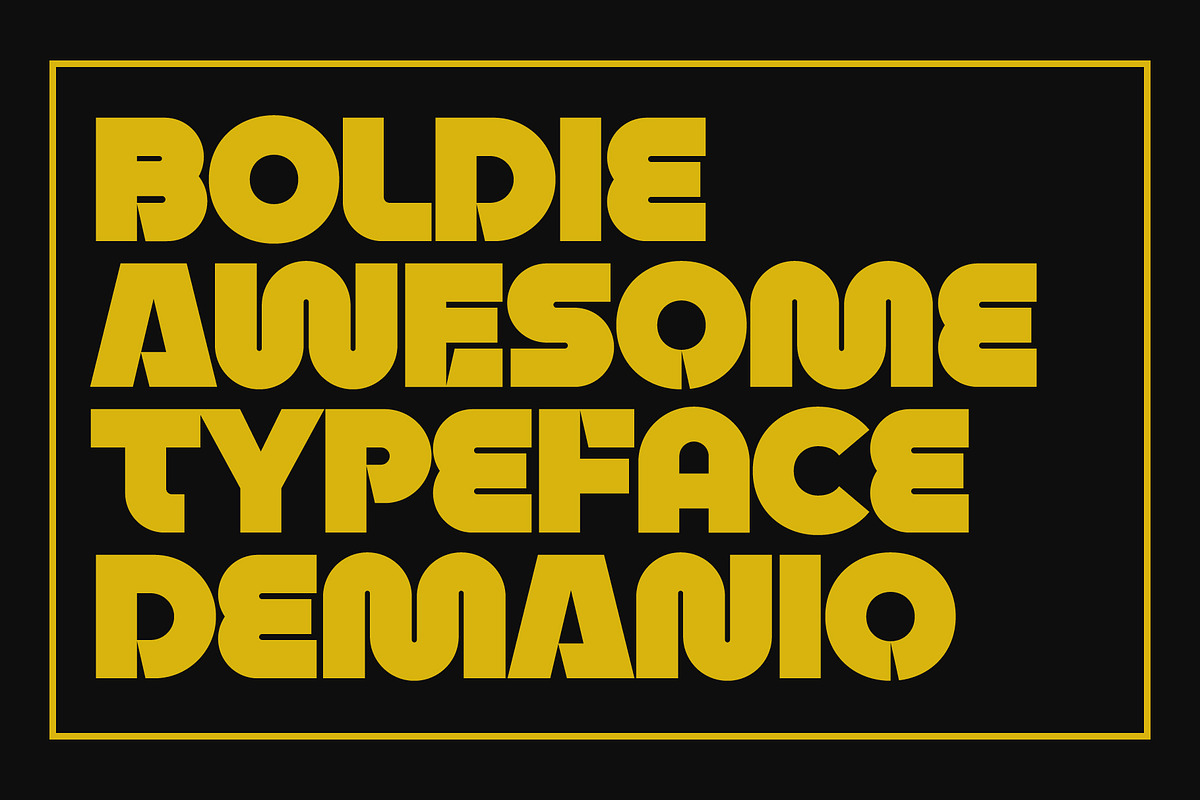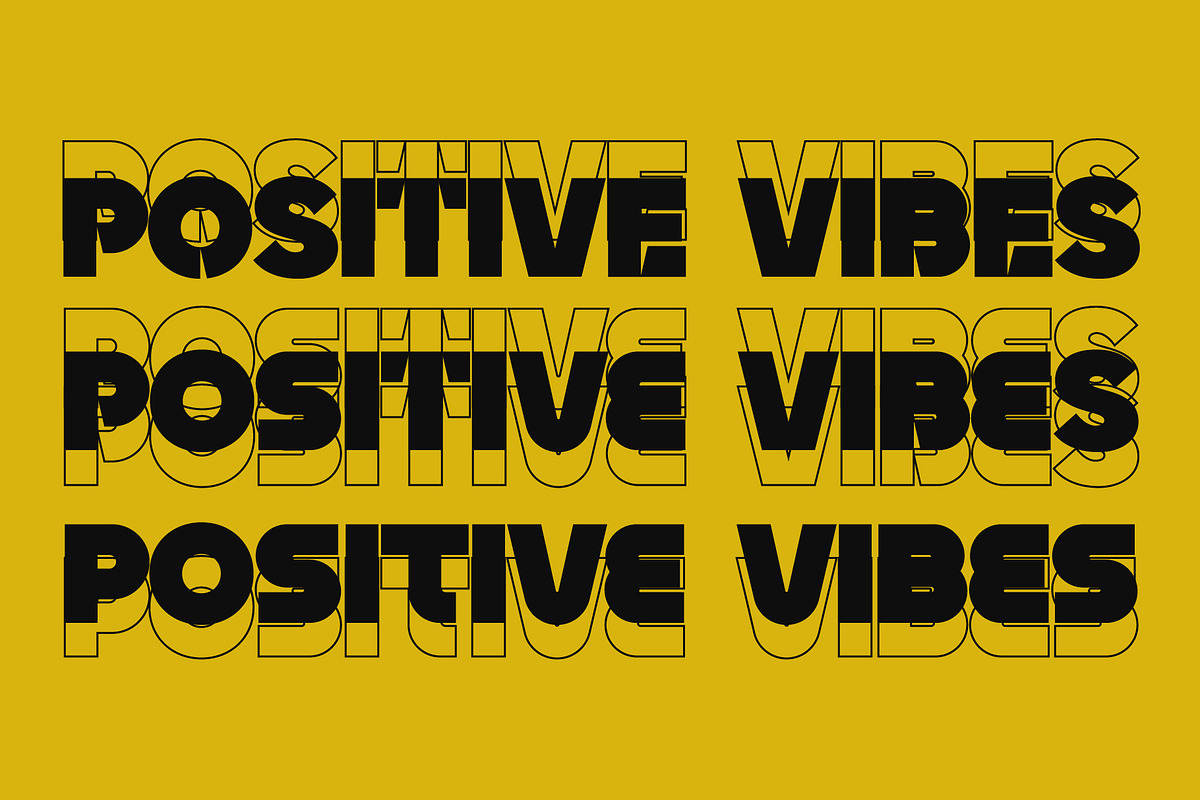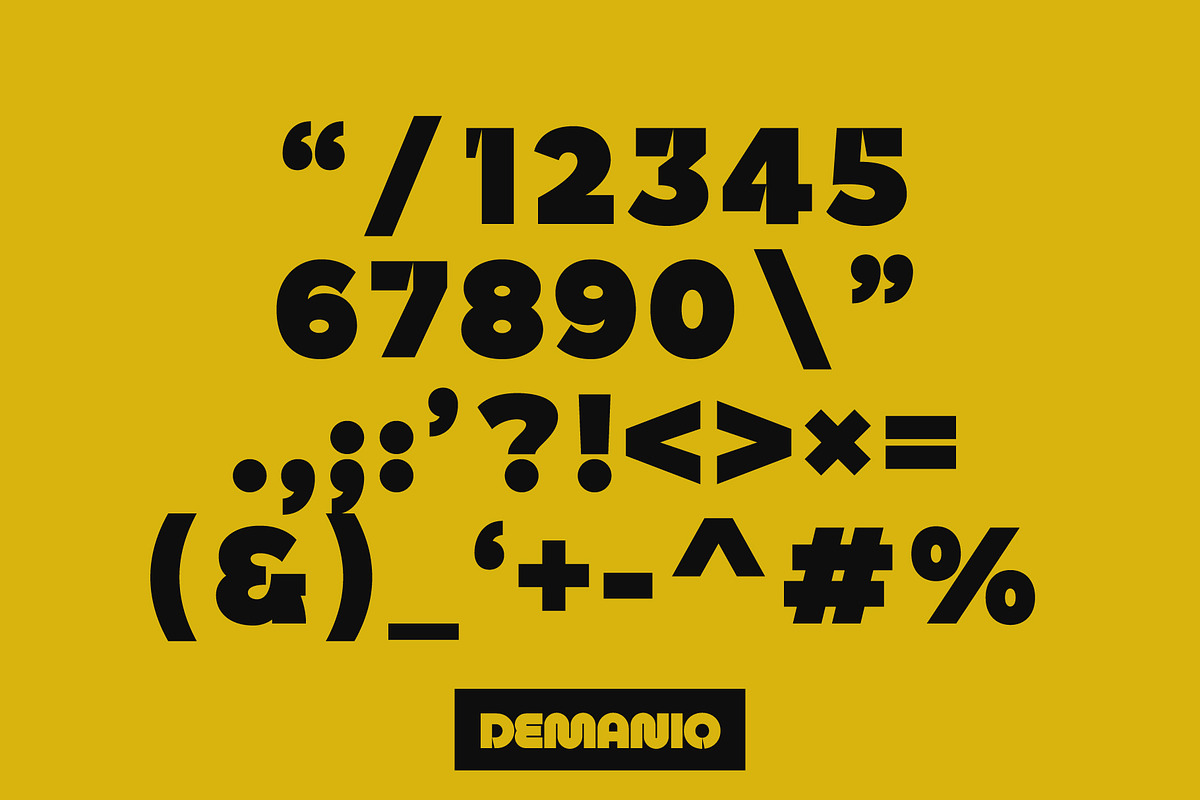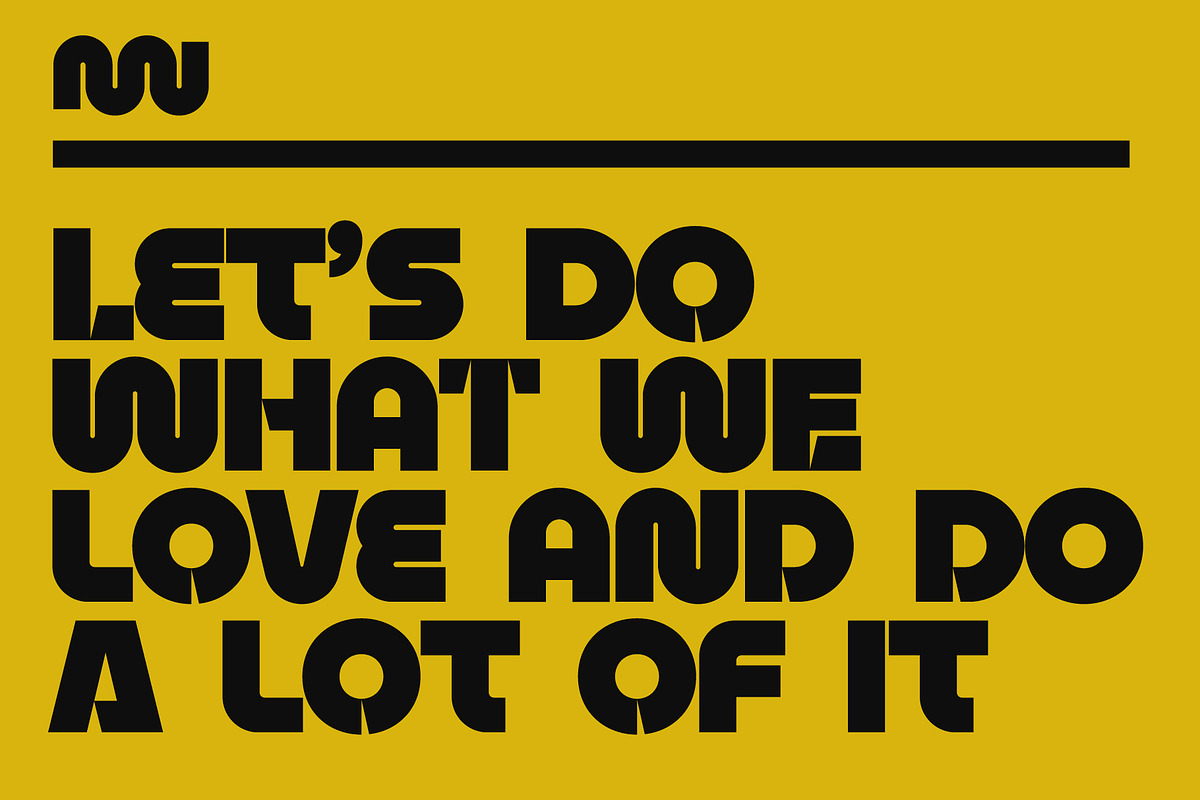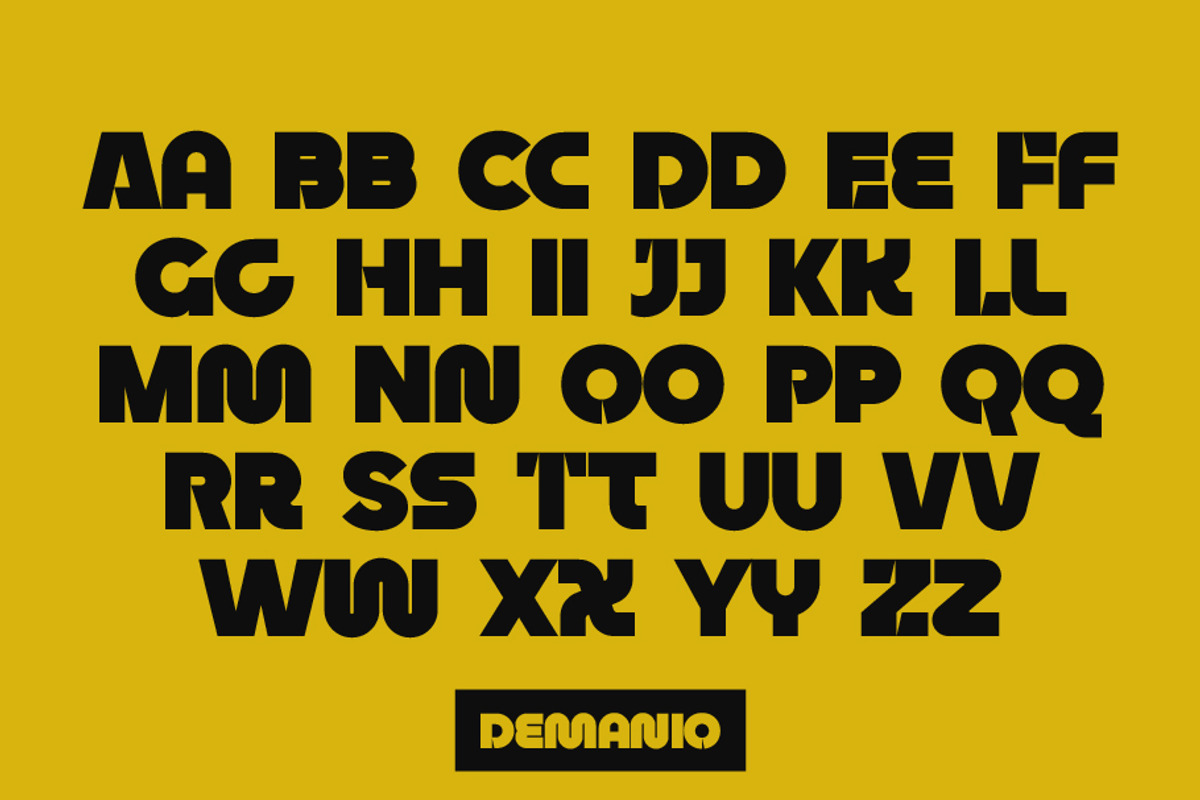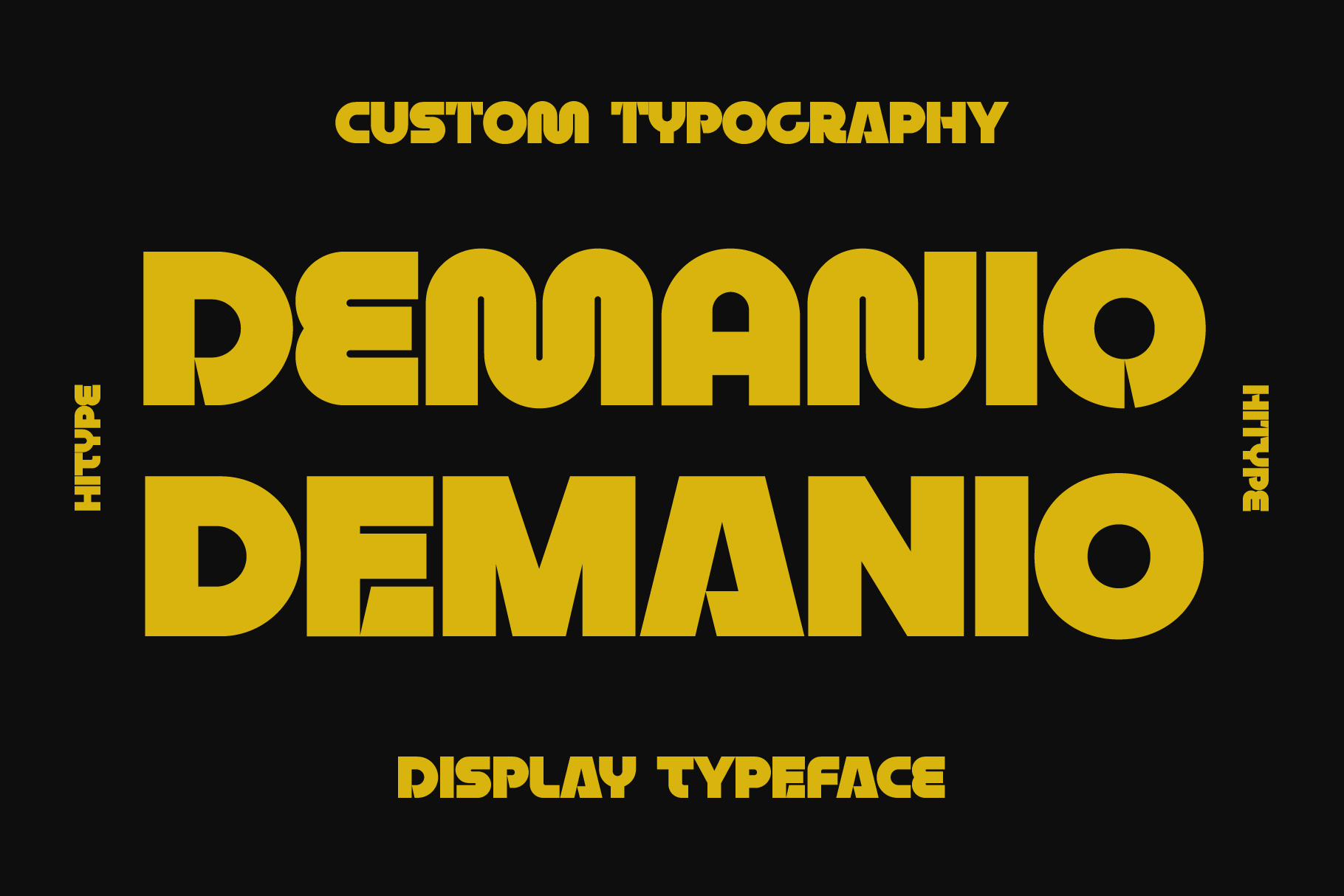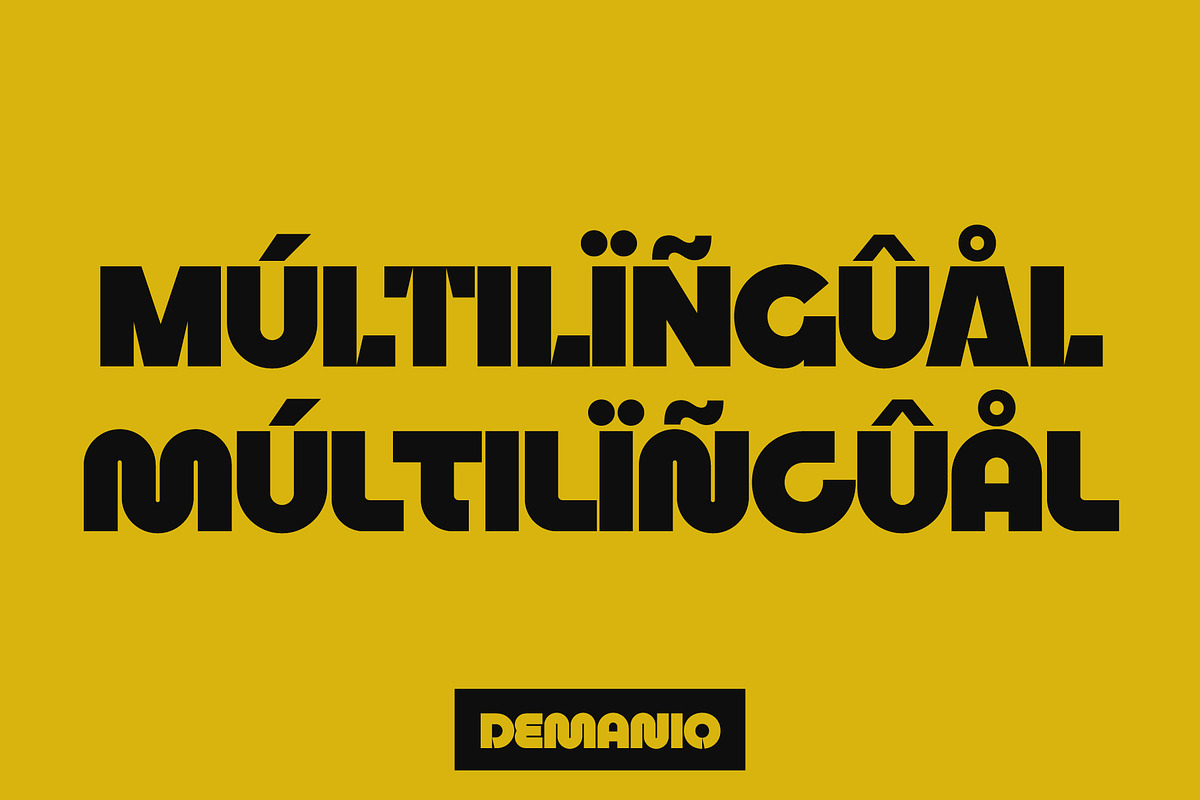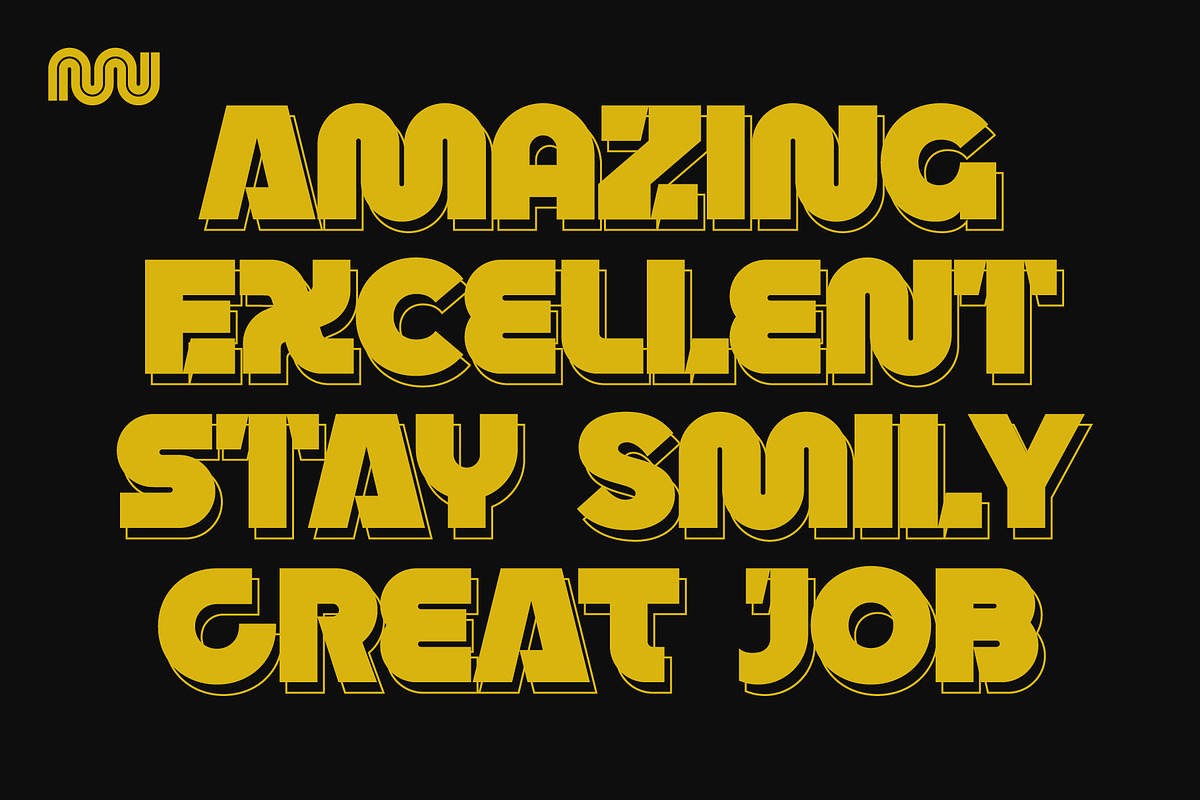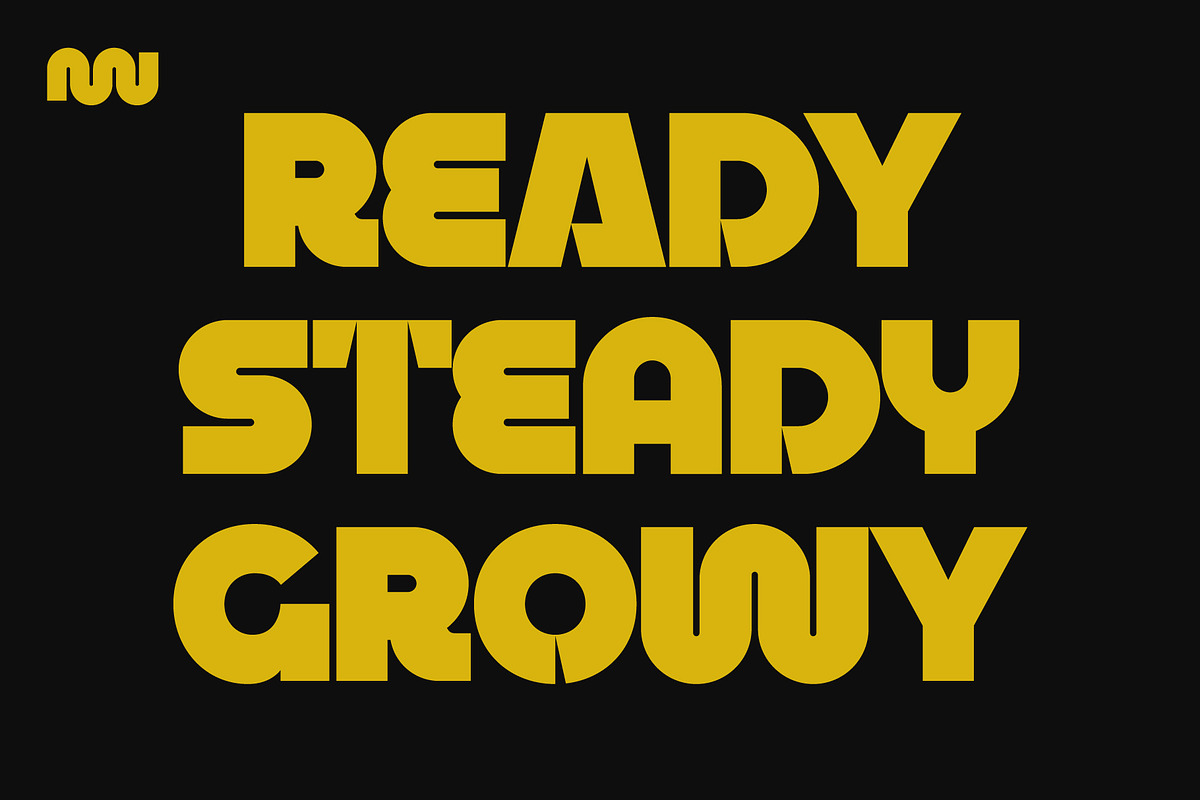
Demanio Display Typeface
Demanio is a bold geometric display typeface with a futuristic twist and striking forms. Its unique construction lets you play with uppercase and lowercase combinations to create dynamic typographic styles instantly. Perfect for logos, posters, packaging, headlines, branding, and any project that needs a bold modern presence. With its strong personality and playful versatility, Demanio is designed to make your designs stand out with confidence.
Features: Uppercase & lowercase alternates – Numbers & punctuation – Multilingual support – OpenType features – Bold geometric shapes with futuristic style – Perfect for logos, posters & display use